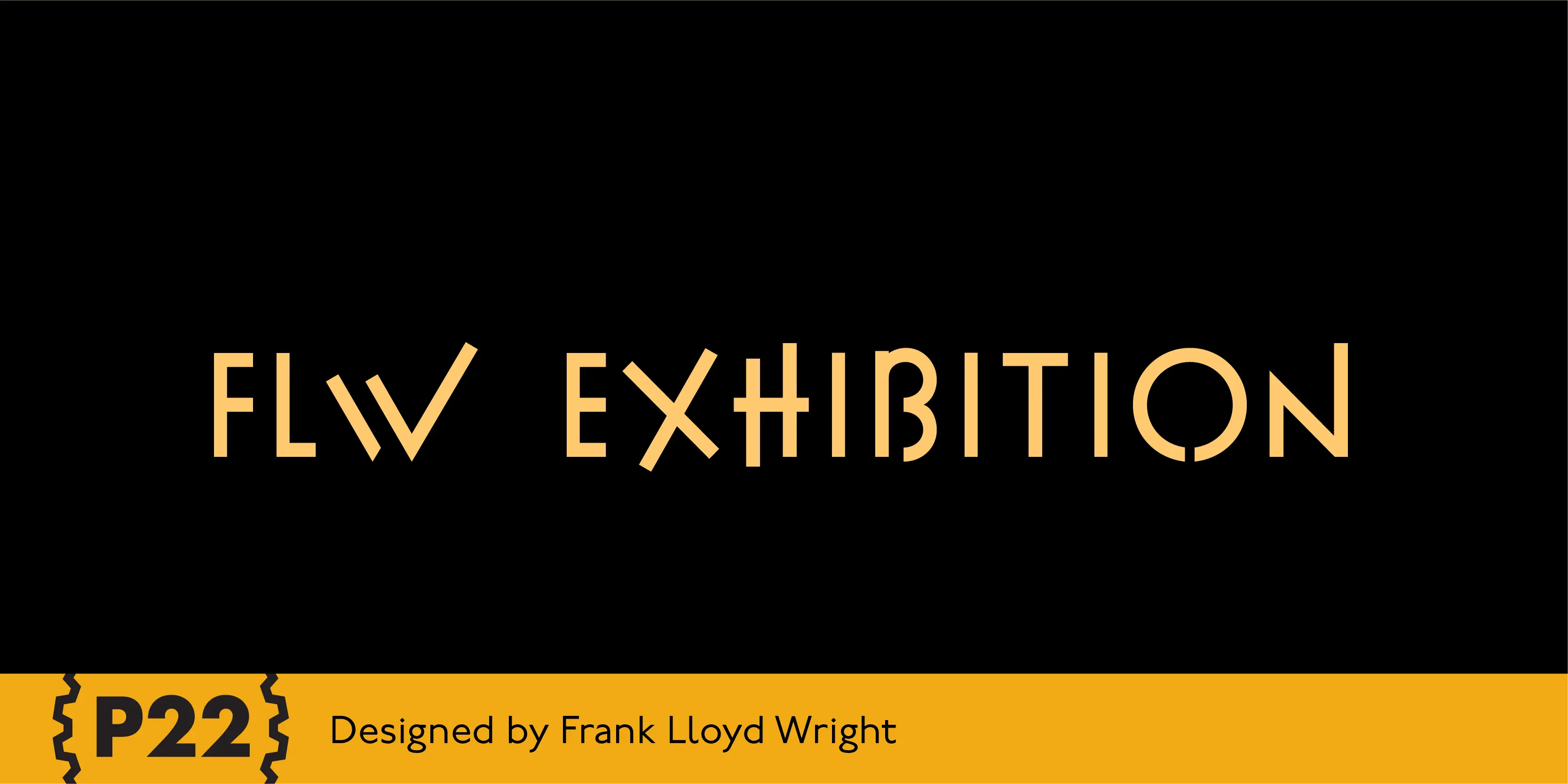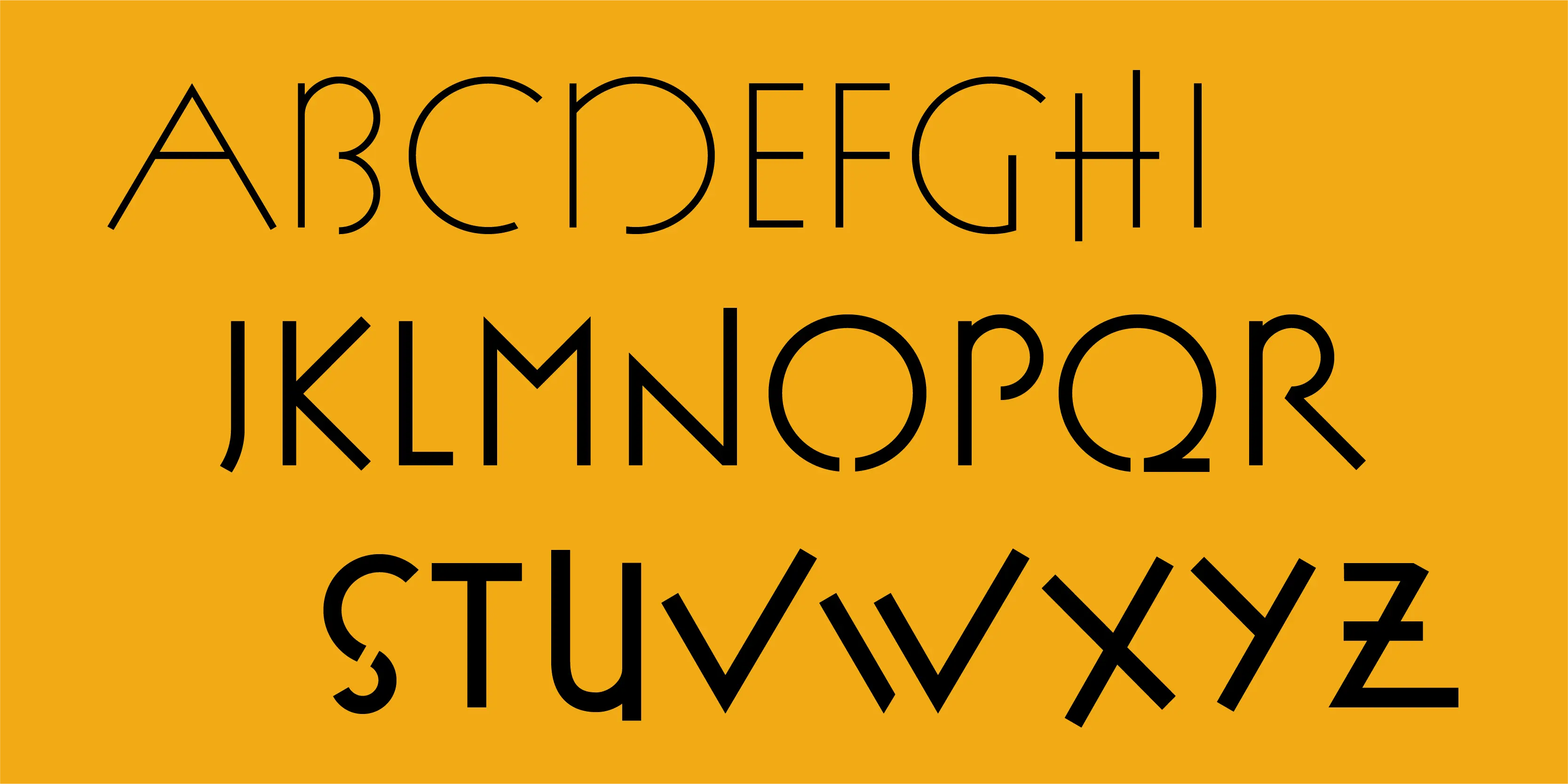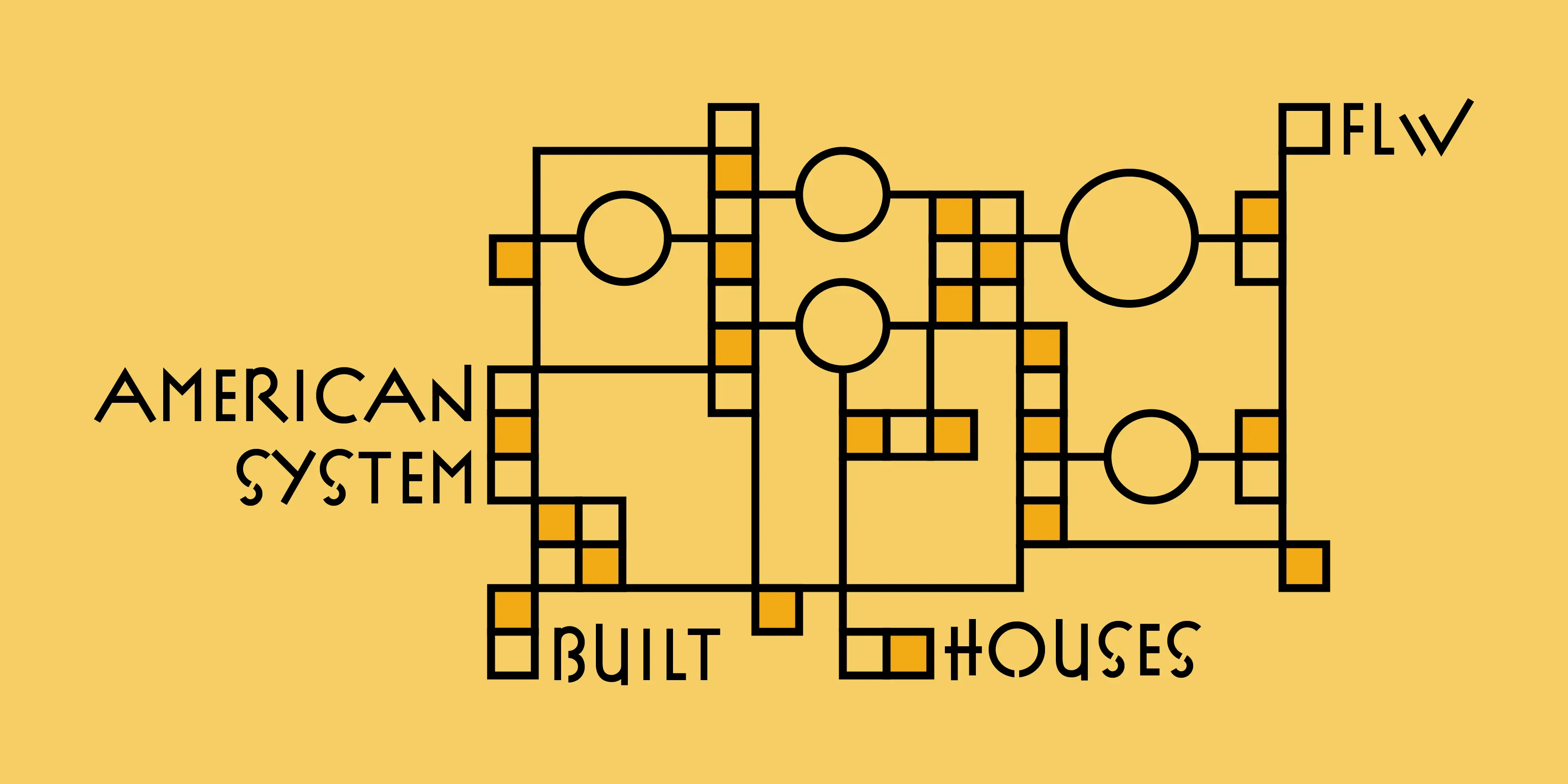
FLW Exhibition Font Family
FLW Exhibition
This font set is the second in a series from P22 type foundry based on the lettering styles of Frank Lloyd Wright. Created in 1931, the Exhibition lettering was intended primarily to accompany Frank Lloyd Wright’s exhibition drawings and models. Many of the 72 Extras were designed to form continuous linking borders. Combinations of these geometric forms can provide endless variations of decorative elements in the style of Frank Lloyd Wright. Many of these images were based on Mr Wright’s “Saguaro Forms and Cactus Flowers” illustration for an unused Liberty magazine cover of 1926. Other imagery in this set was derived from assorted geometric designs by Wright. Exhibition Regular, Light, and Bold have been remastered and now contain almost 400 characters including support for Western and Central European languages.